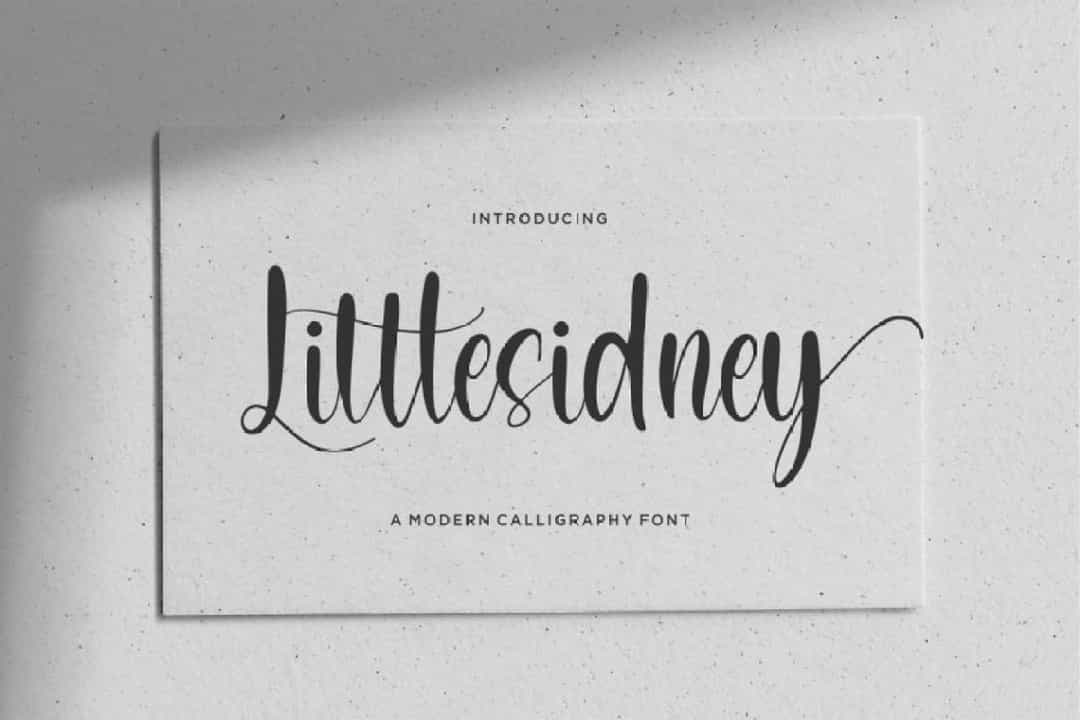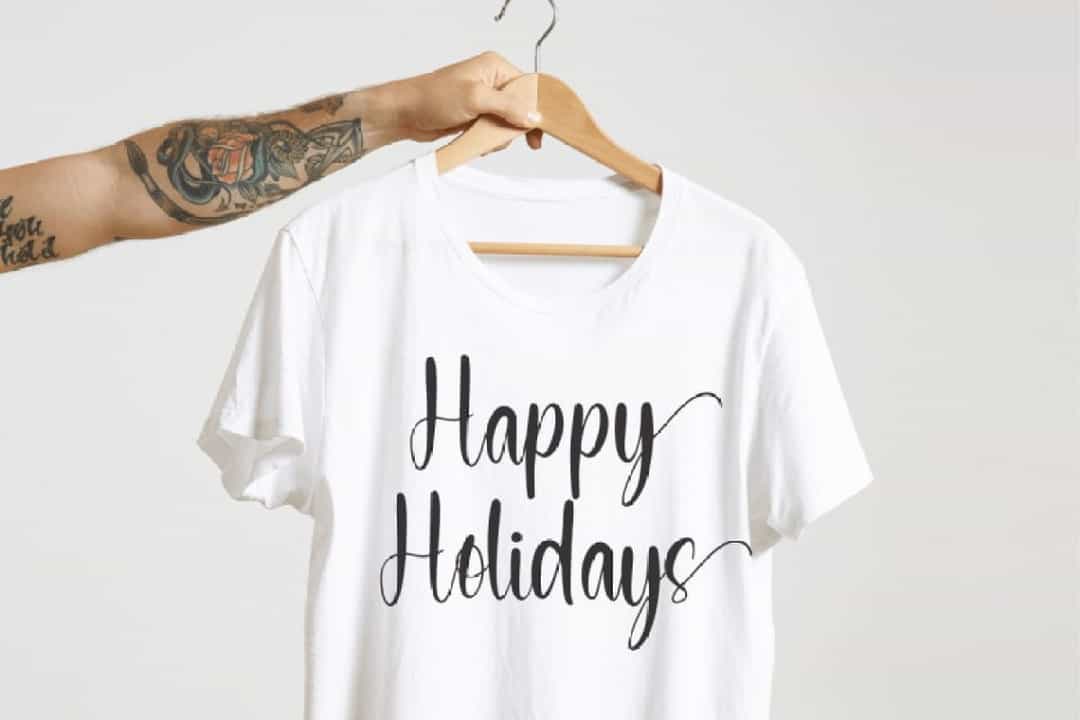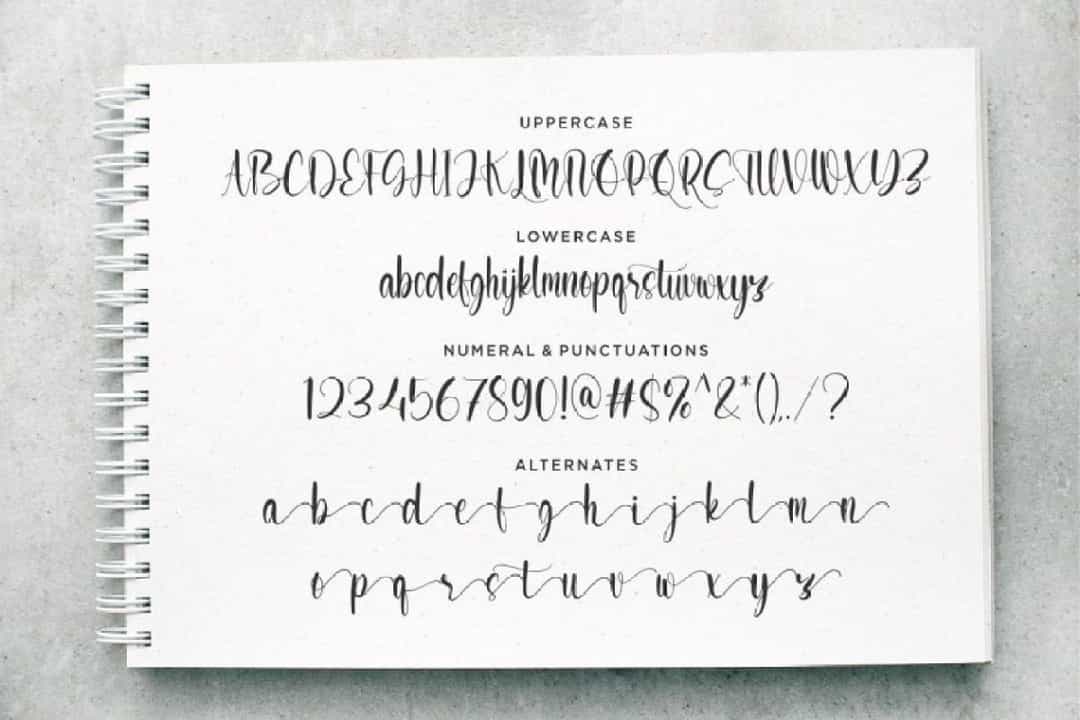
Discover Littlesidney Font, part of the Calligraphy collection—a versatile and unique font perfect for adding a personal touch to your projects. Download it for free and enjoy crafting designs with style, from invitations to social media posts. This font is available exclusively for personal use, giving you the freedom to create without limits. Unlock your creativity with Littlesidney Font today!
Littlesidney can be described as a modern calligraphy font. Perfect for branding, packaging and product packaging projects as well as magazine weddings social media posts as well as simply conveying words over background graphics.